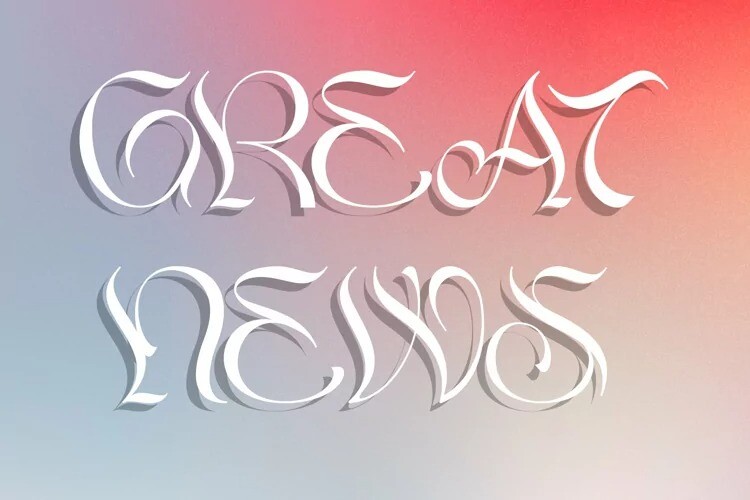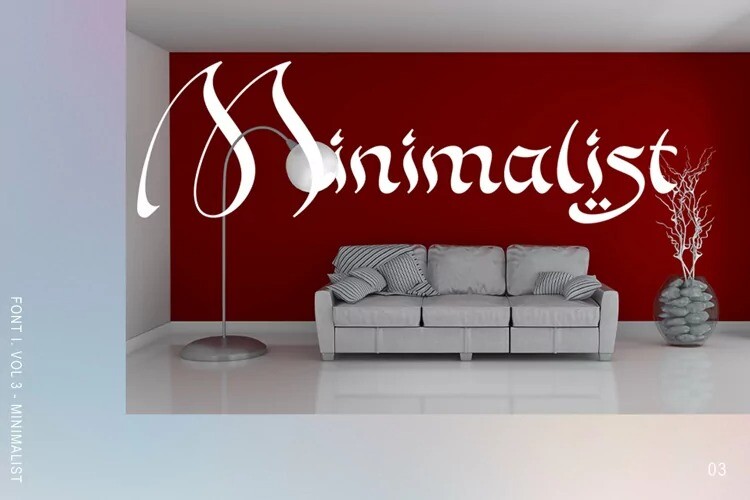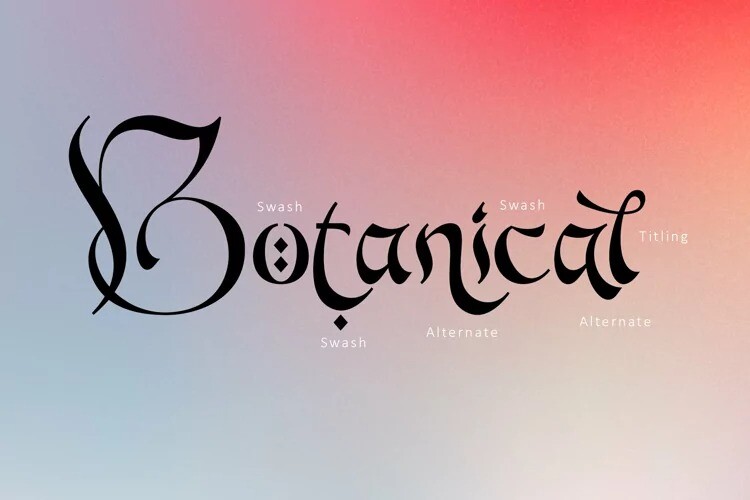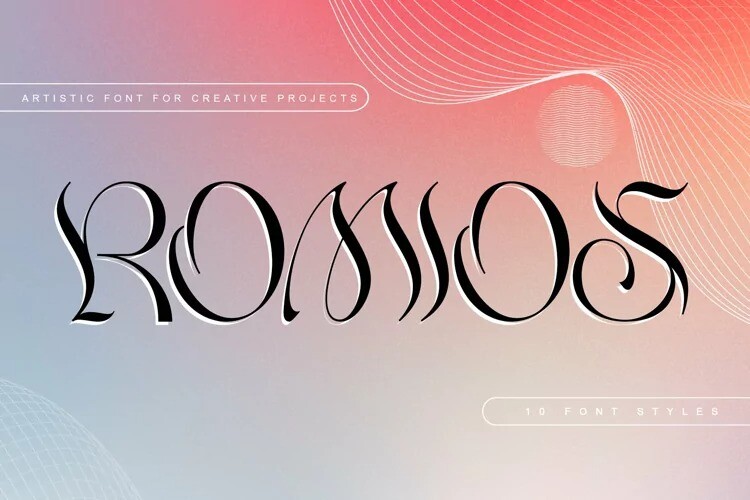
Romios Font
Romios Font is a classic font that is a perfect representation of the timelessness and romance of the past, inspired by the beautiful Art Nouveau era. Each style features distinctive serifs and clean lines, resulting in a modern yet classic look. This font family is perfect for any project that requires a touch of sophistication, from editorial design to branding and advertising. The versatility of Romios font makes it an excellent choice for both digital and print media.
With its PUA encoding, accessing the various glyphs and swashes is a breeze. Each style is carefully crafted to ensure legibility, making it an excellent choice for international audiences.